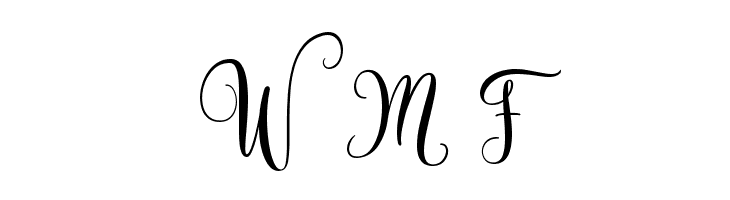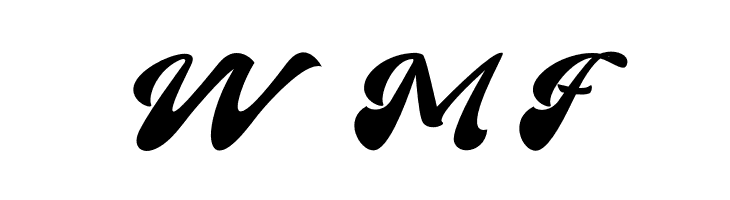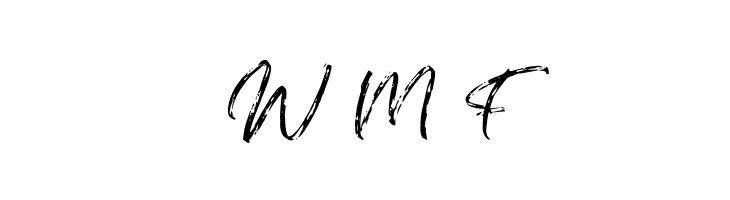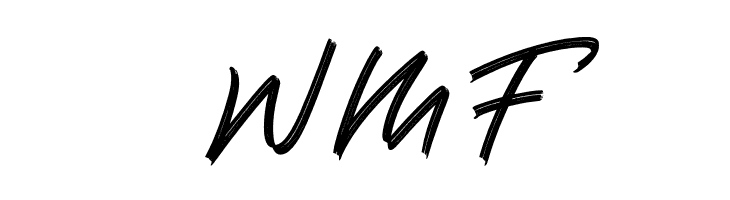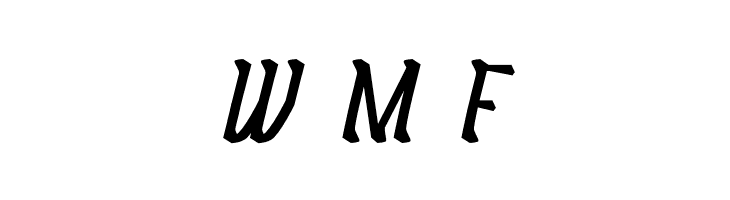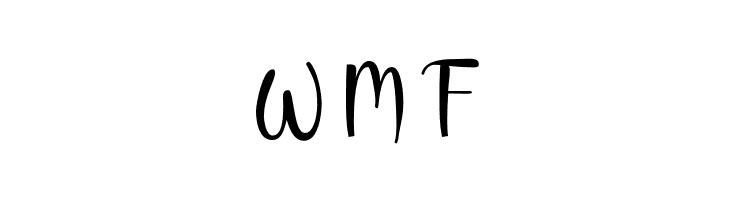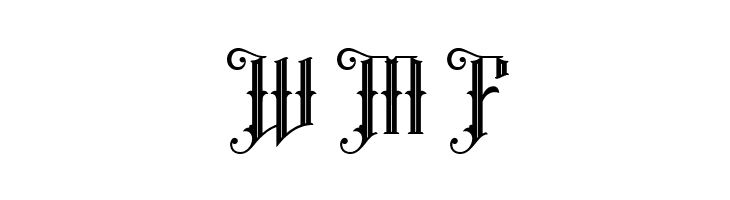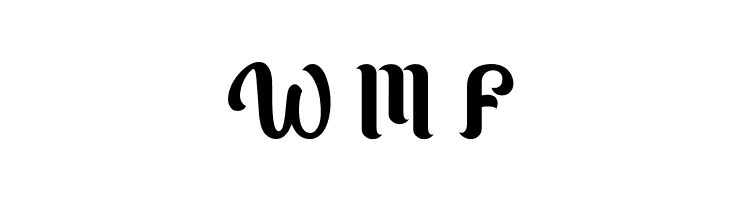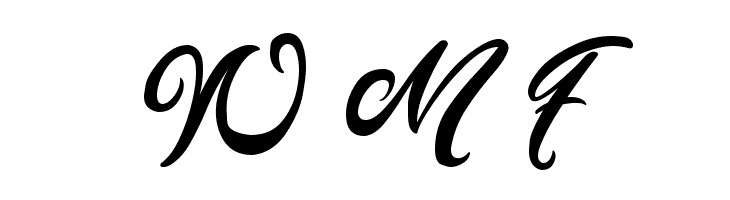
A dynamic, italic font with sharp, angular strokes and a modern, expressive style.
A playful, hand-drawn font with irregular shapes and dynamic strokes.
A whimsical, cursive font with elegant loops and flowing connections.
A decorative cursive font with elegant loops and swashes.
An elegant cursive font with flowing, connected characters.
An elegant, flowing script font with graceful curves and a dynamic slant.
A graceful script font with fluid, connected cursive strokes.
A flowing, elegant script font with smooth, connected strokes.
A playful and dynamic font with geometric and whimsical elements.
A bold, expressive script font with fluid, interconnected strokes.
A delicate and elegant script font with thin, flowing strokes.
A lively and elegant script font with playful curves and dynamic contrast.
A lively and elegant script font with a handwritten touch.
An elegant, cursive font with a graceful, handwritten style.
A modern, geometric sans-serif font with a clean and bold appearance.
A modern, clean sans-serif font with uniform stroke width and excellent readability.
A playful, bold font with rounded, bubbly characters.
A playful, bold, hand-drawn font with rounded characters.
A casual, handwritten font with a playful and informal style.
A bold, dramatic font with sharp serifs and a gothic flair.
A dynamic and energetic script font with fluid, cursive strokes and a hand-drawn appearance.
A flowing, elegant cursive font with a modern touch, ideal for personal and creative projects.
What are five standout new fonts?
Recent favorites include NYOEHOKA-Italic, NYOEHOKA, magicalscript-Regular, Estonia and attention. They balance clarity and personality, working well for tech brands, editorial layouts, and social visuals.